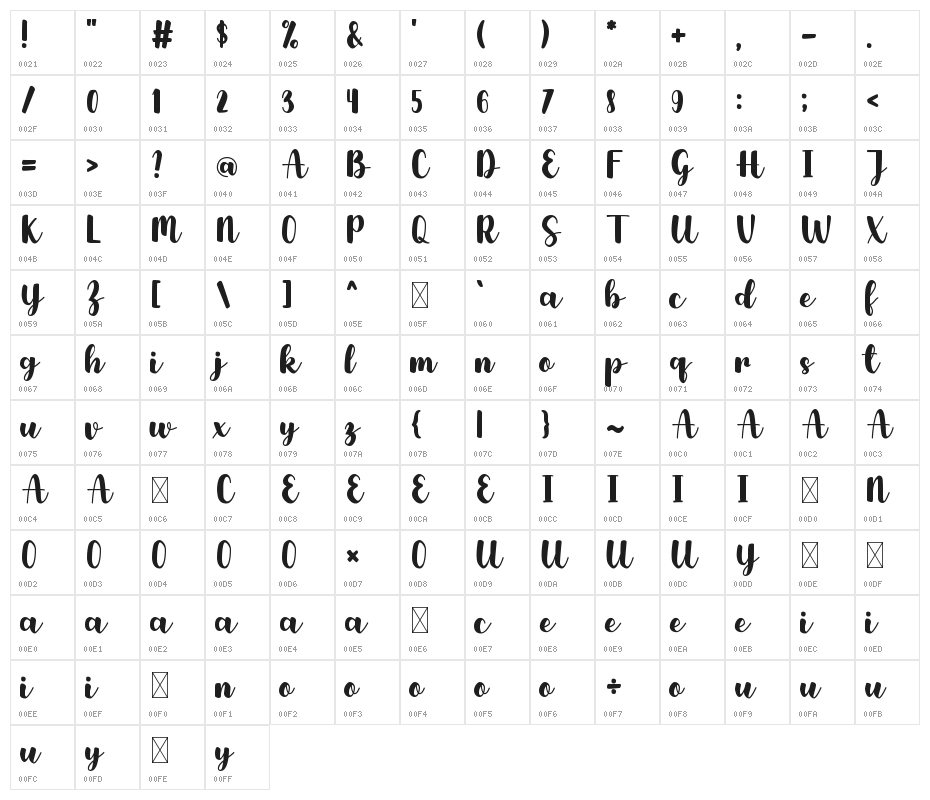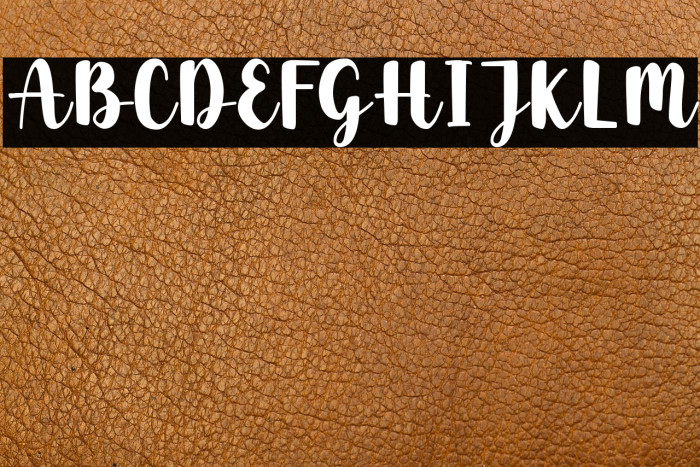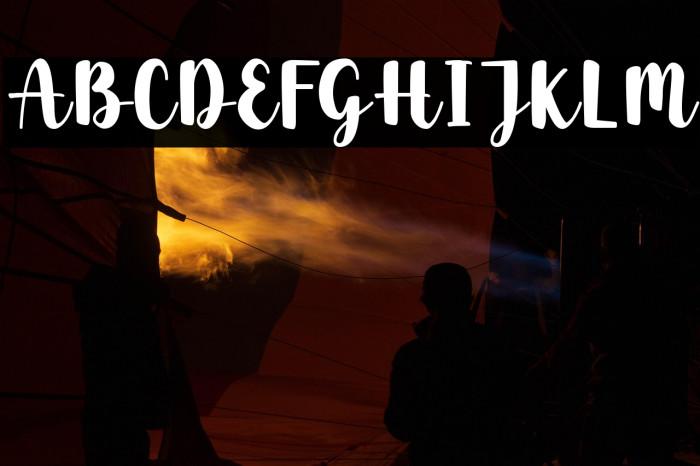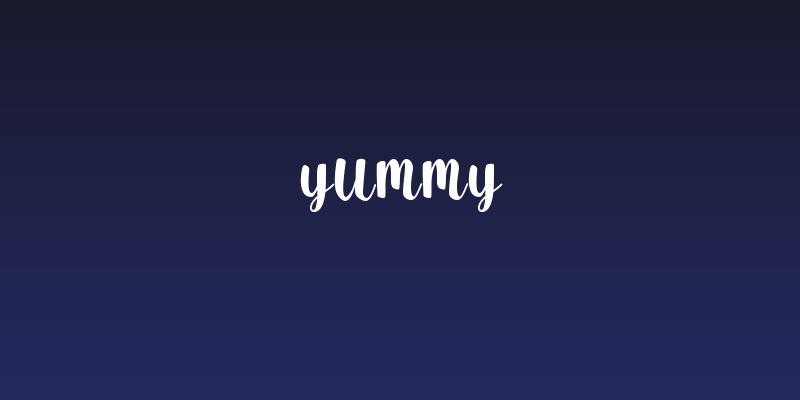
Yummy Font
Yummy Description
This font features a playful and bold script style with a handwritten feel. The letters are connected in a flowing manner, creating a sense of movement and energy. The strokes are thick and consistent, giving the font a strong presence. The uppercase letters are slightly taller than the lowercase, maintaining a uniform look. The numbers and special characters are designed to match the overall style, ensuring cohesion across all elements. This font is ideal for projects that require a fun and lively touch.